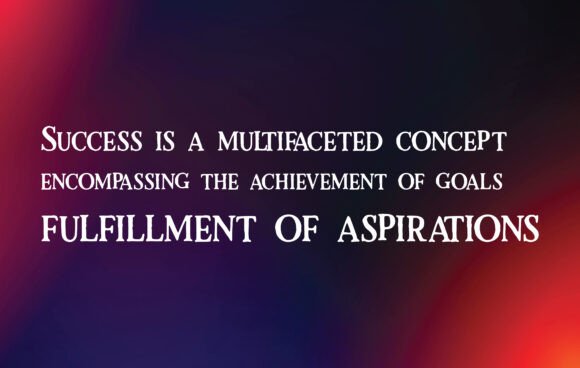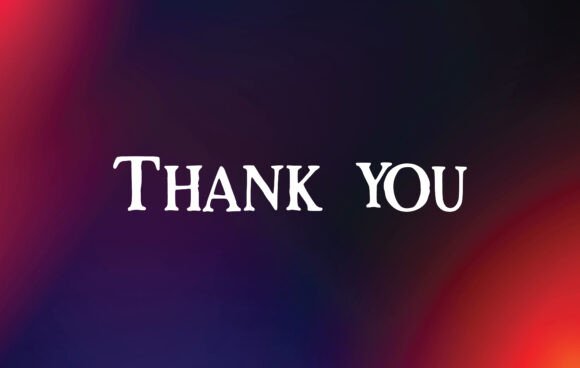
Introduction to Hypericum Font Font
Fonts play a crucial role in design, and the Hypericum Font font is a typeface that brings both character and versatility to any project. Whether you’re working on a branding project, a website, or a print design, the Hypericum Font font offers a unique style that can elevate your work.
| 📌 Font Name | Hypericum Font |
| 👤 Author | moonlight craft |
Hypericum is a lovely and beautiful handwritten font.
This font has the potential to take your creative ideas to the highest level It is the best choice for creating eye catching logos, branding and quotes.
Key Features of Hypericum Font Font
Why Choose Hypericum Font Font?
The Hypericum Font font is more than just a typeface – it’s a design tool that helps you communicate your message with style and clarity. Its unique character set and versatile design make it suitable for a wide range of applications, from elegant invitations to bold headlines.
With its carefully crafted letterforms and balanced proportions, the Hypericum Font font ensures readability and visual appeal across all mediums.
What makes Hypericum Font font special?
The Hypericum Font font stands out with its unique design, exceptional readability, and versatility across various design applications.